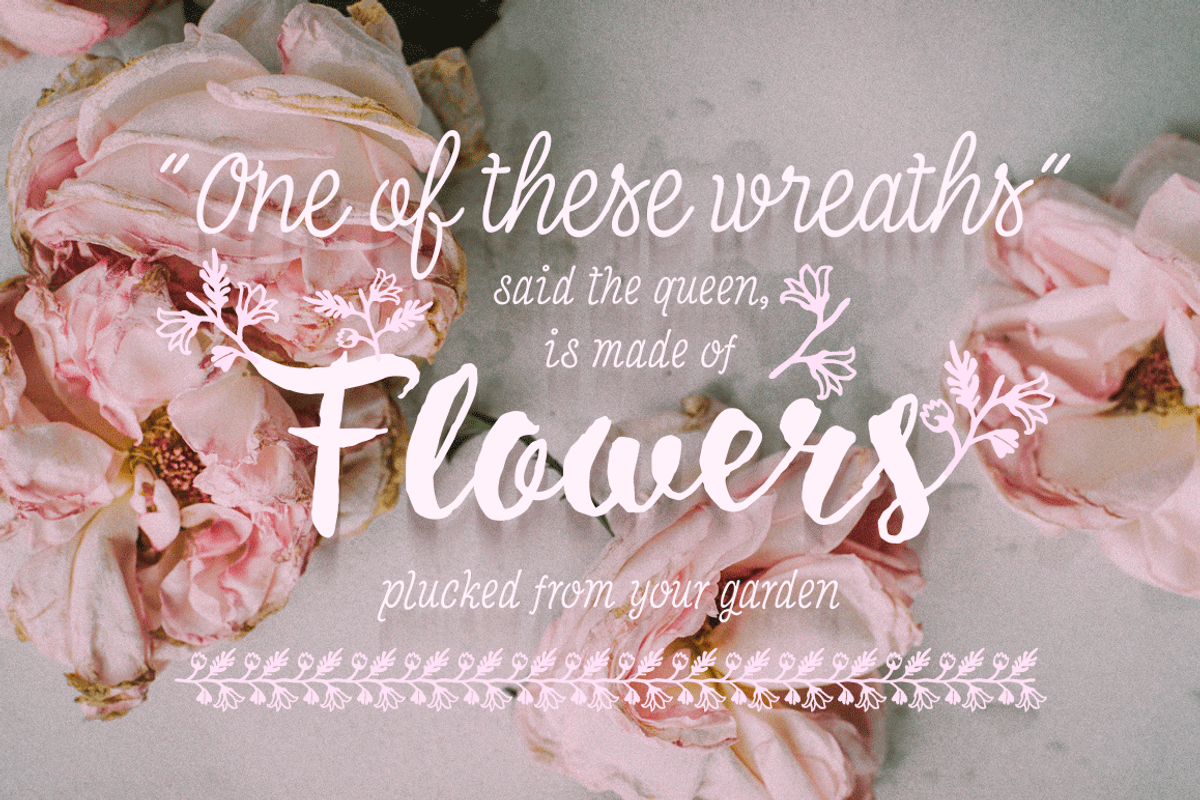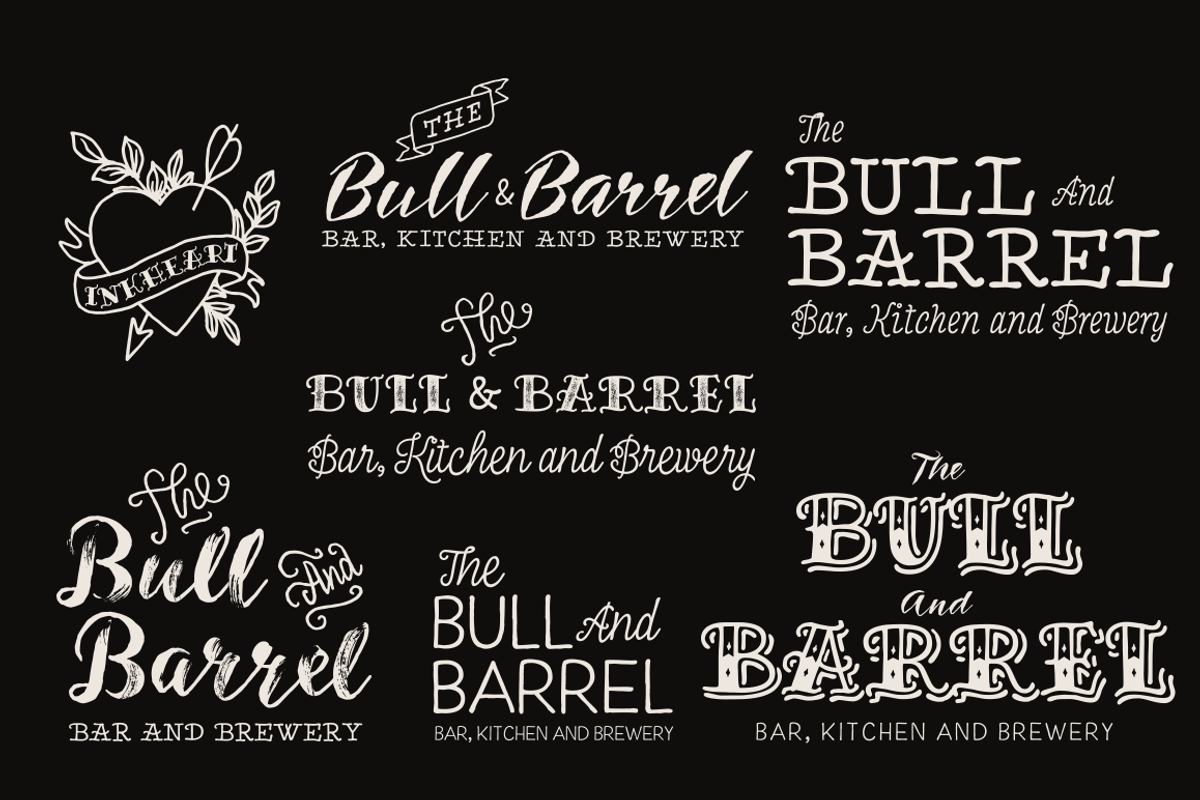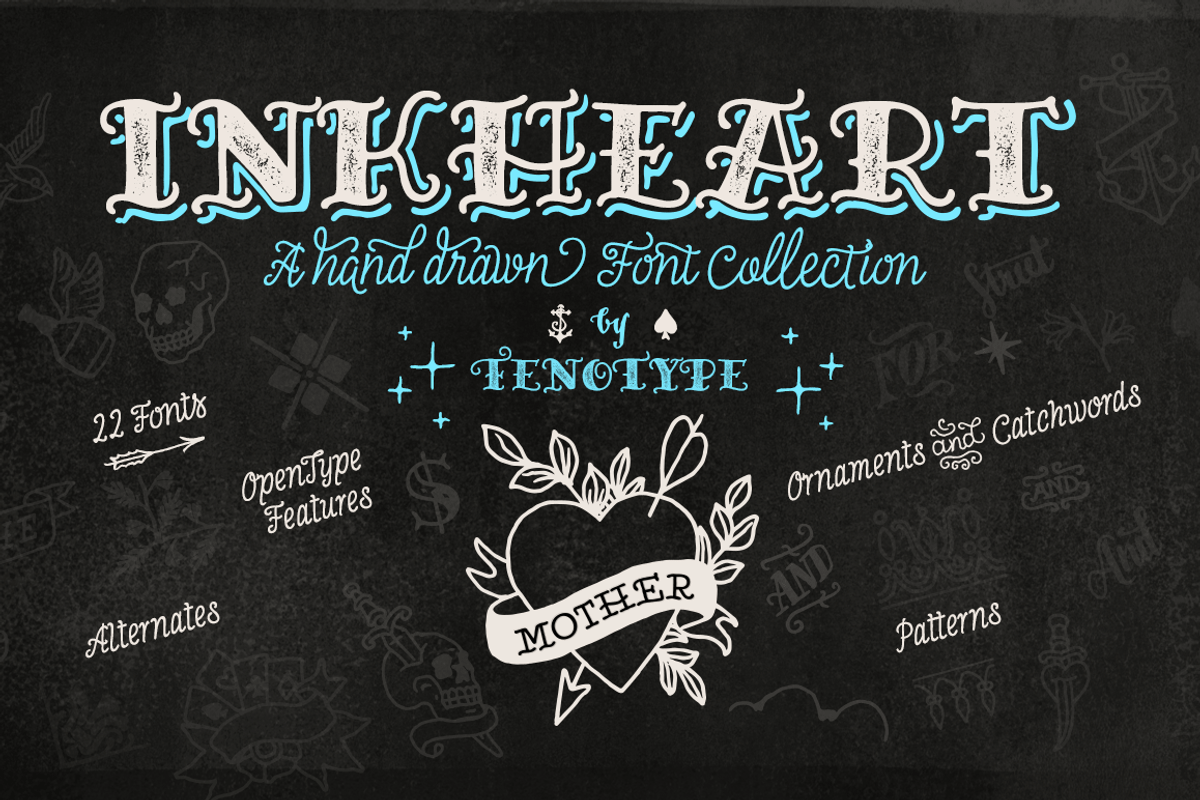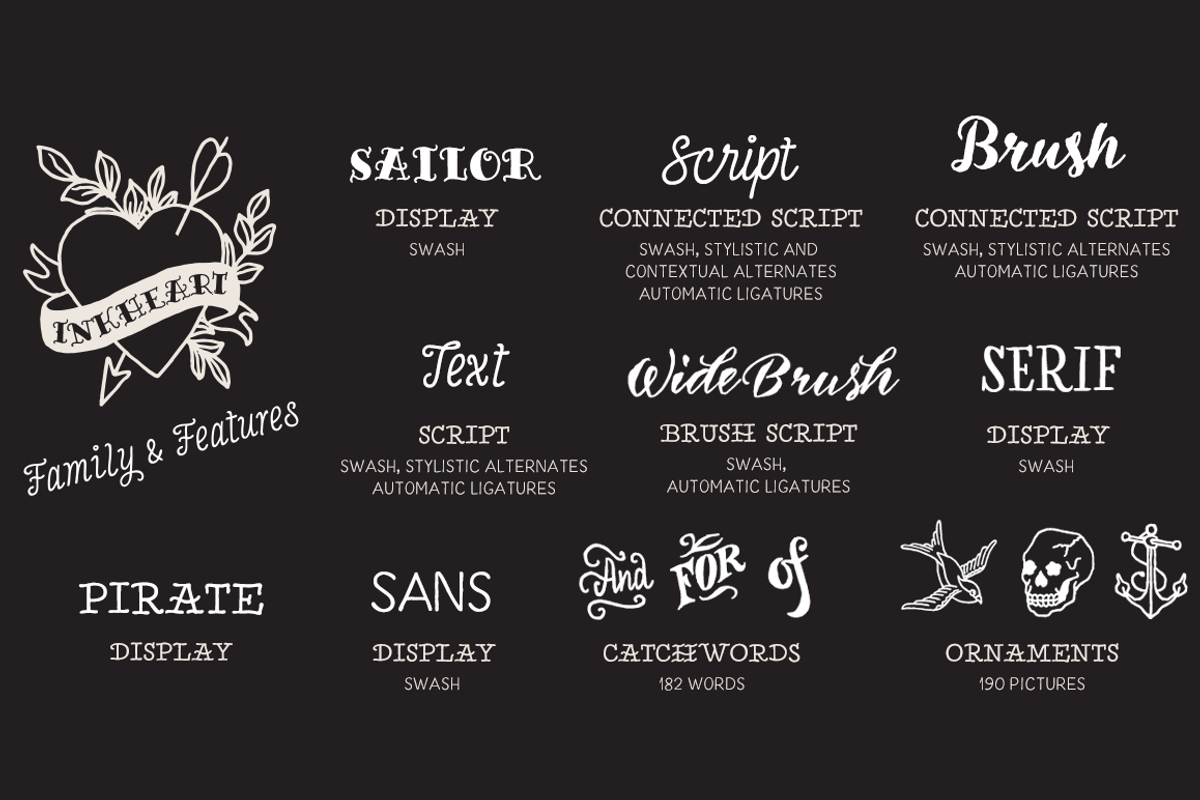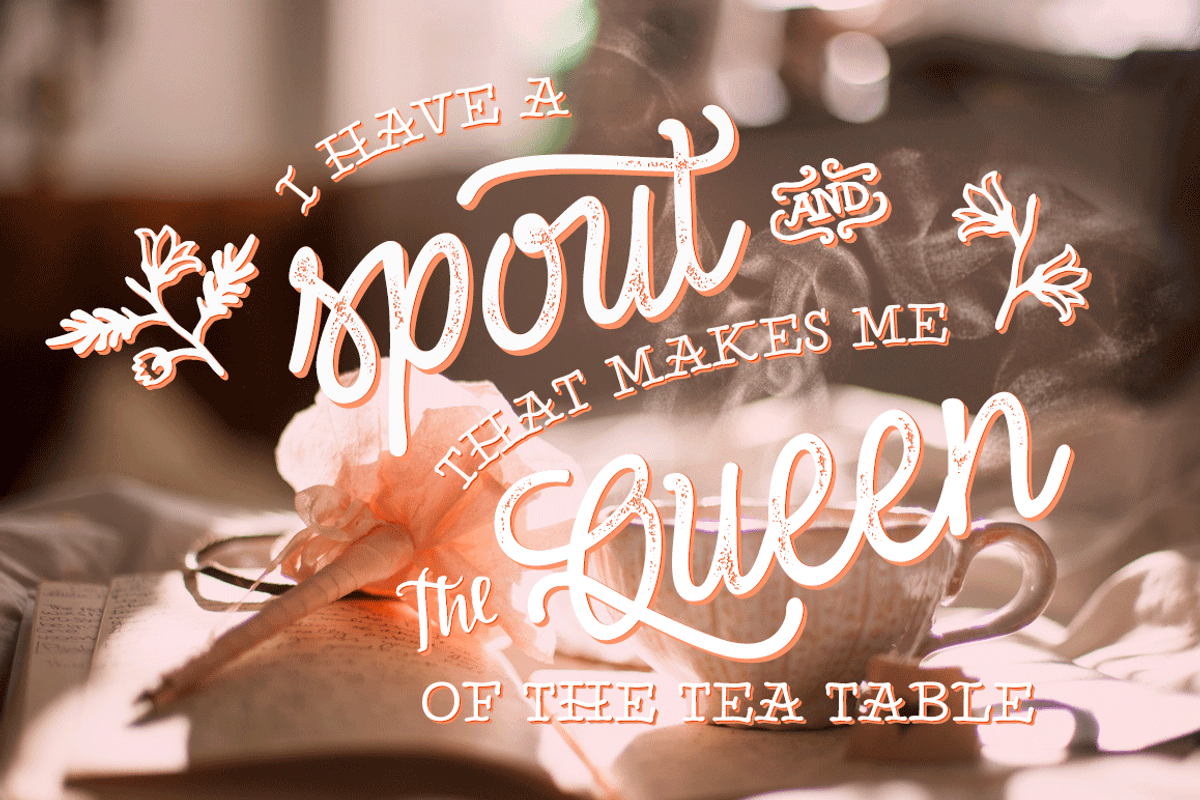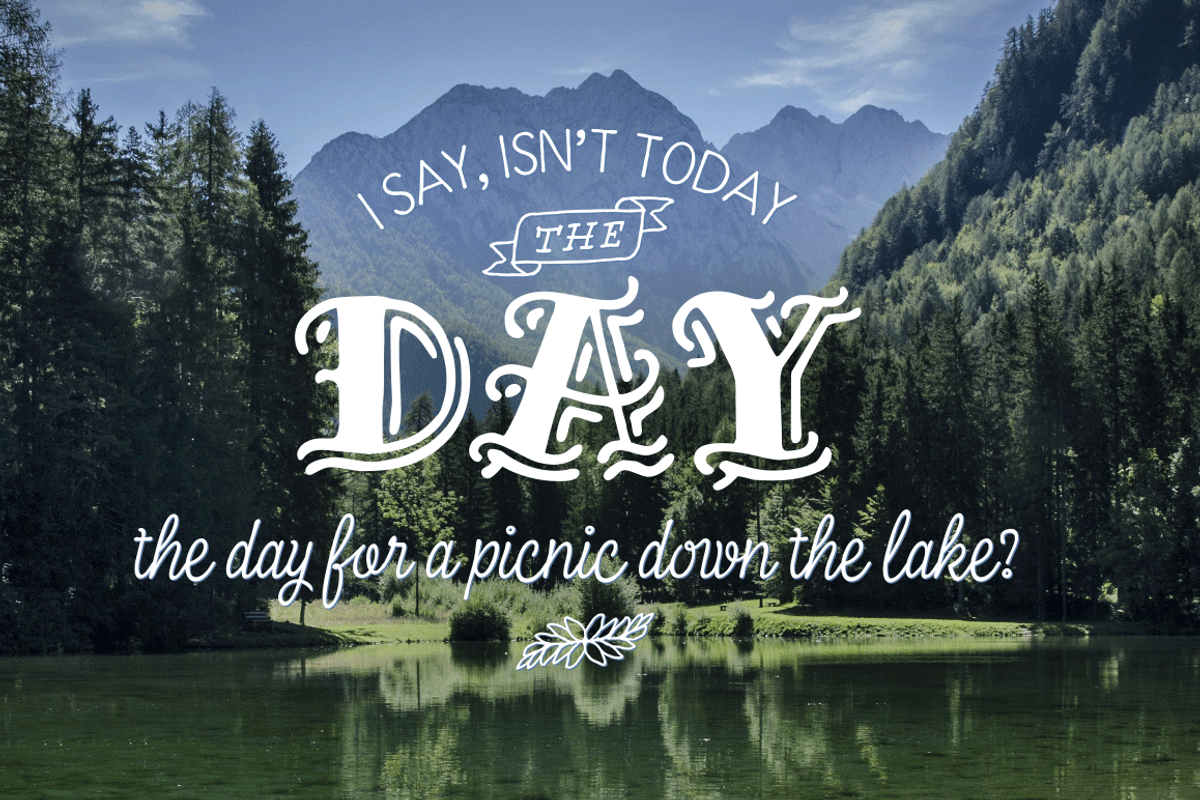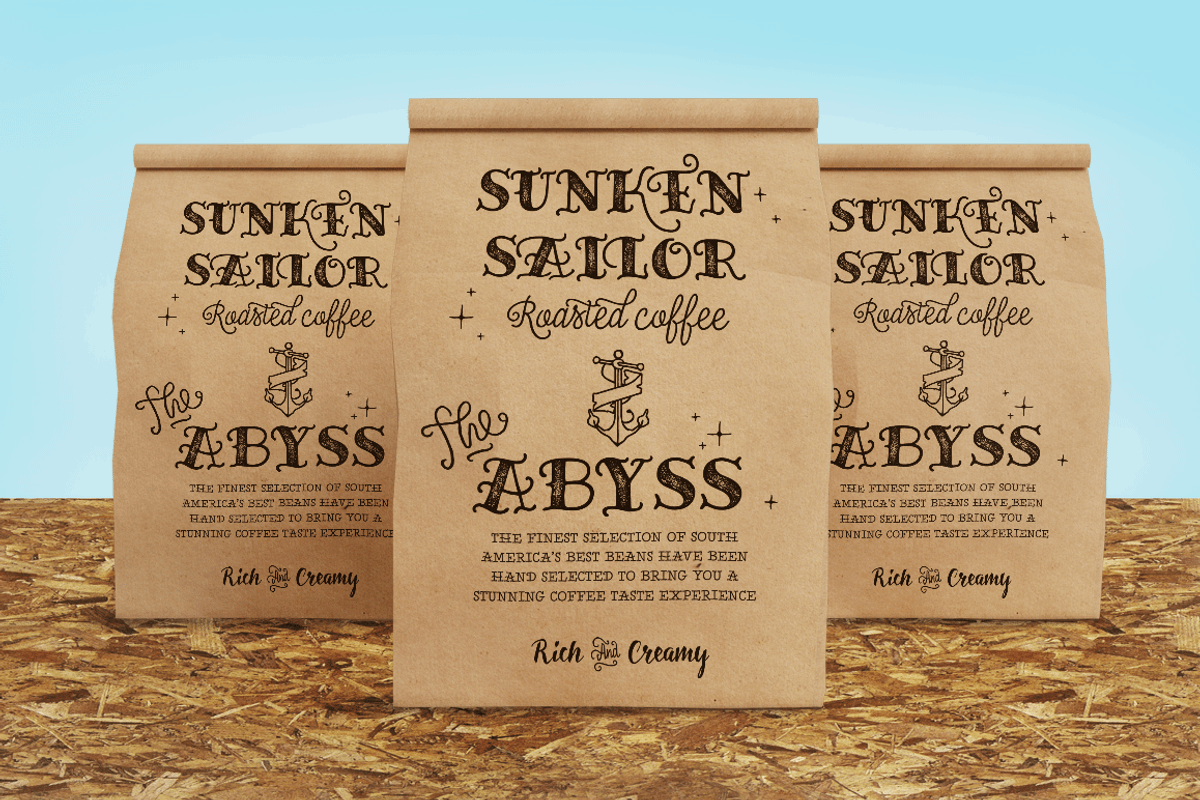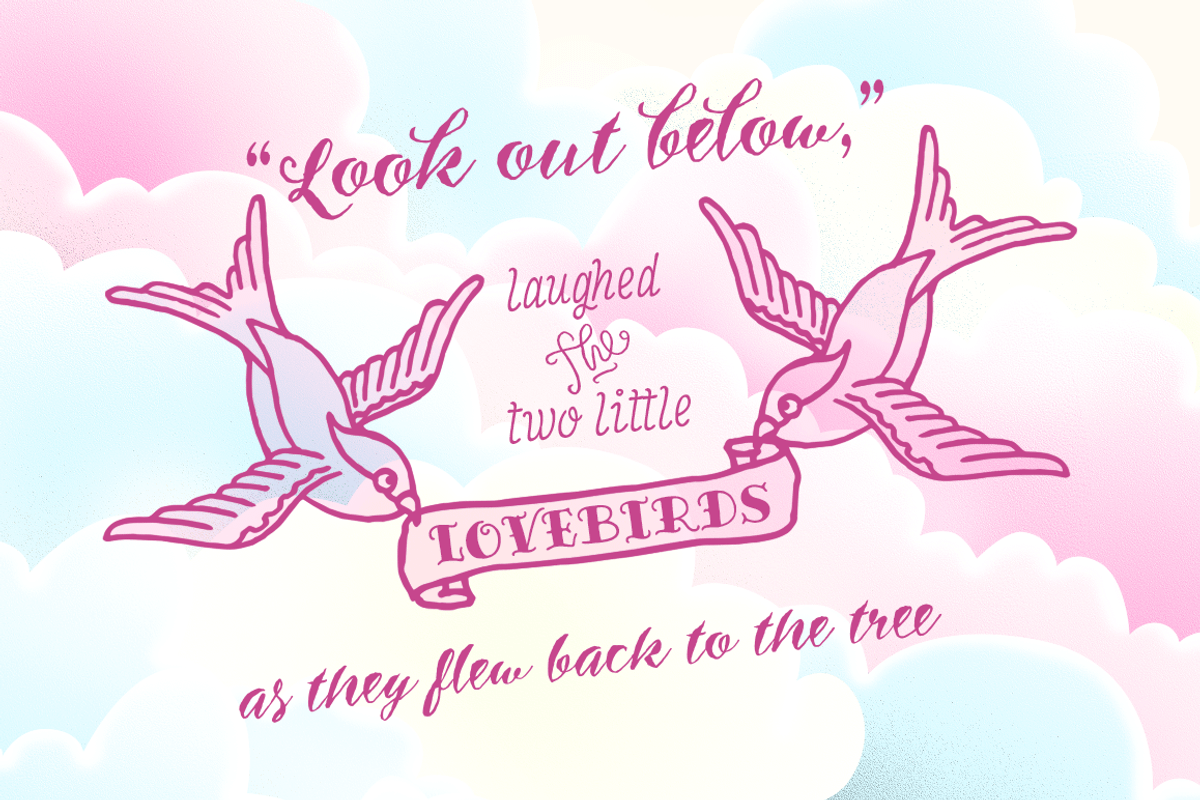
Inkheart Font Collection!
Inkheart Font Collection! by Fenotype is a font selected for branding, posters, packaging, typography.
- Inkheart family is also packed with OpenType features such as Automatic Ligatures, Swash, Stylistic and Titling Alternates.
Why Inkheart Font Collection! is worth a look
Inkheart Font Collection! by Fenotype fits naturally into Branding, posters, packaging, typography.